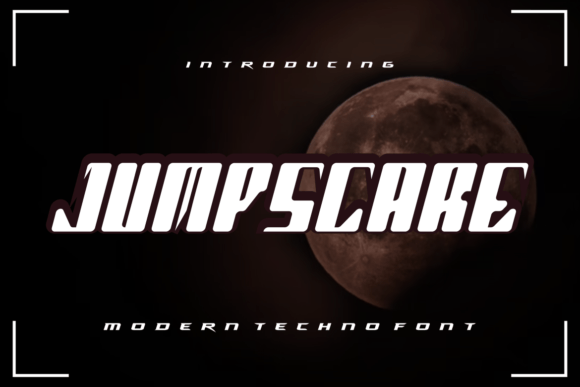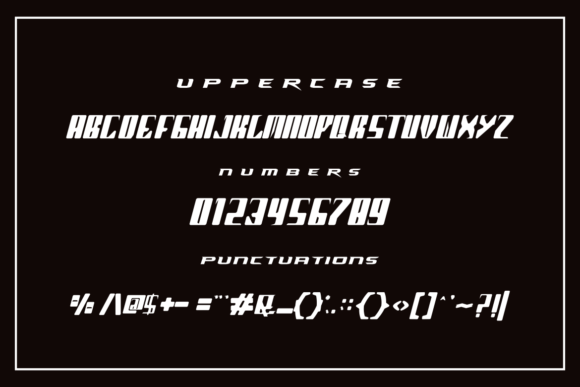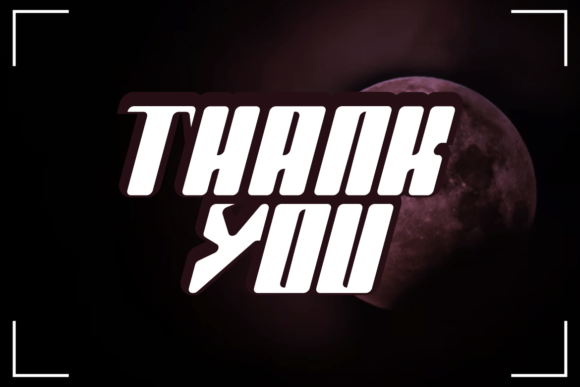
Jumpscare Font
JUMPSCARE FONT SPECIMEN
Jumpscare is a modern slab serif font that feels beautiful classy, elegant, and modern. This font is perfectly suited for a wide variety of projects, such as signature, stationery, logo, wedding, typography quotes, magazine or book cover, website header, clothing, branding, packaging design, and more.